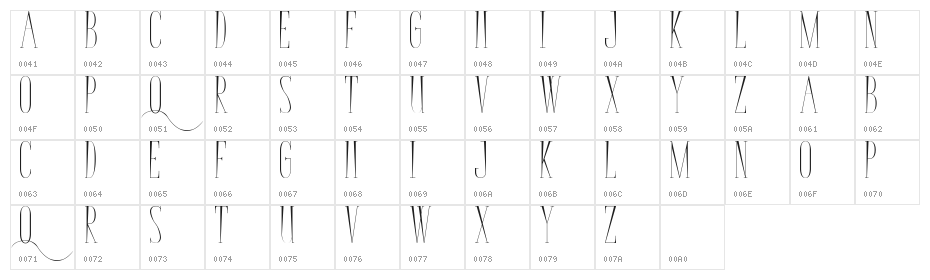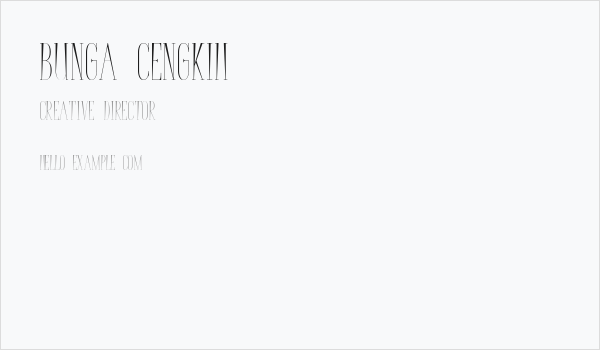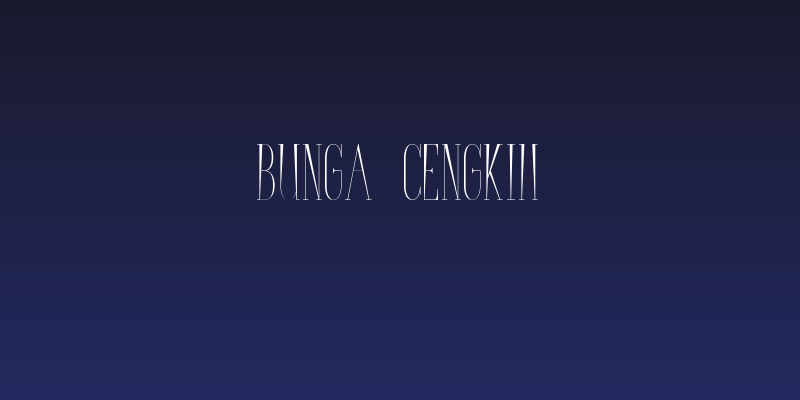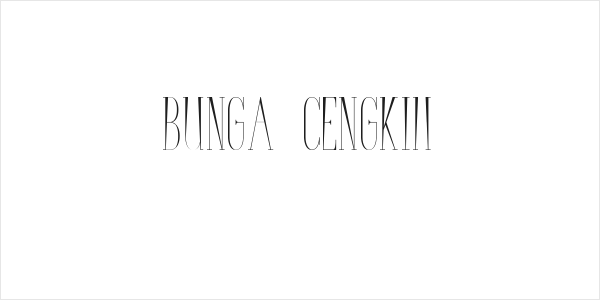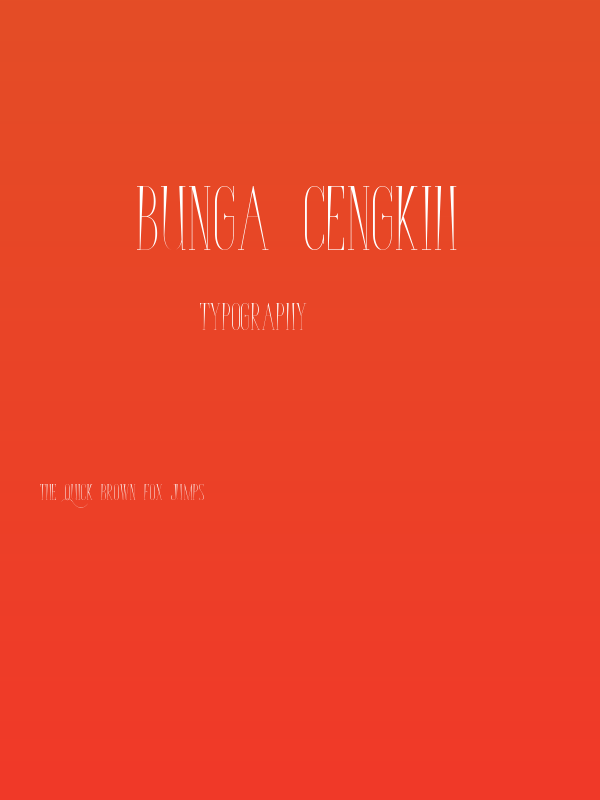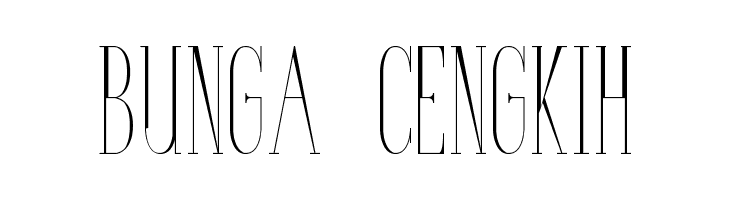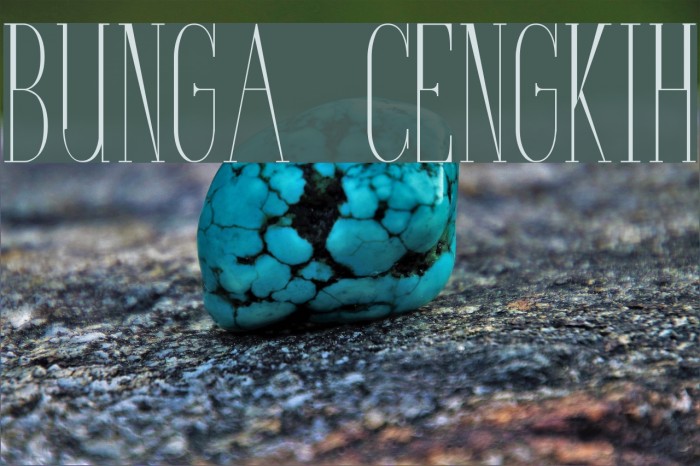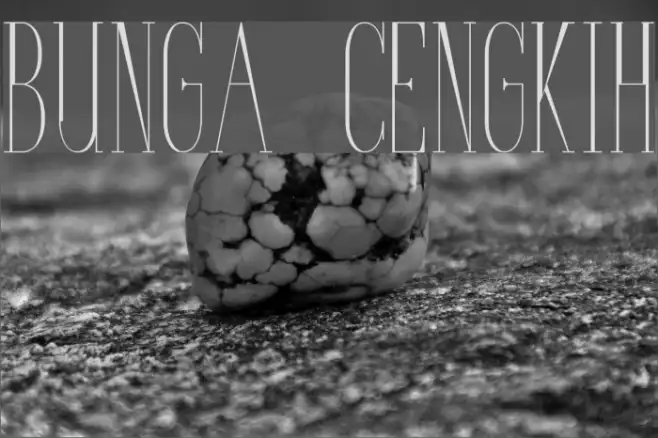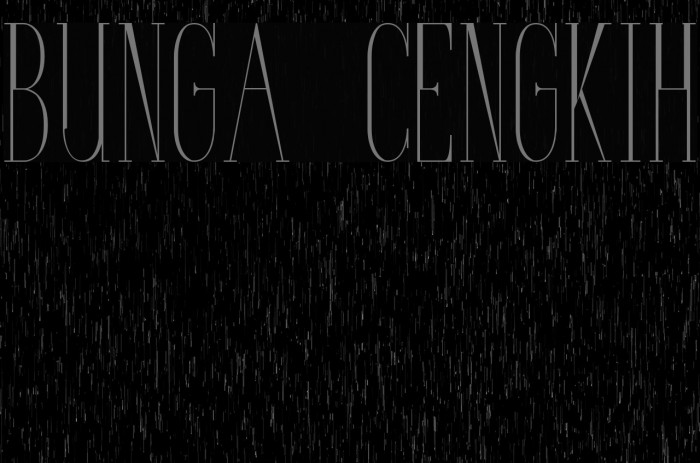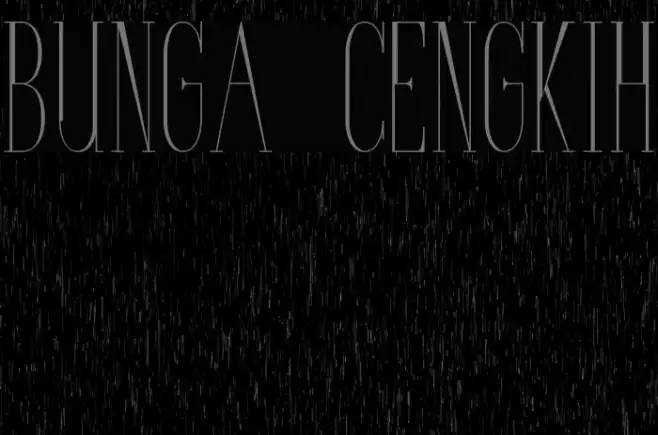
Bunga Cengkih Font
Bunga Cengkih Description
This font is a striking and elegant typeface characterized by its tall, narrow letterforms and high contrast between thick and thin strokes. The uppercase and lowercase letters exhibit a sophisticated and refined appearance, making it suitable for projects that require a touch of class and elegance. The vertical emphasis of the letters, combined with the sharp serifs, gives it a modern yet timeless feel. The font's unique style is ideal for creating a strong visual impact, whether used in print or digital media. Its distinct design makes it perfect for headlines, titles, and branding materials where a bold statement is desired.
| Proposed Projects | Ideal for luxury branding, fashion magazines, wedding invitations, and high-end product packaging. |